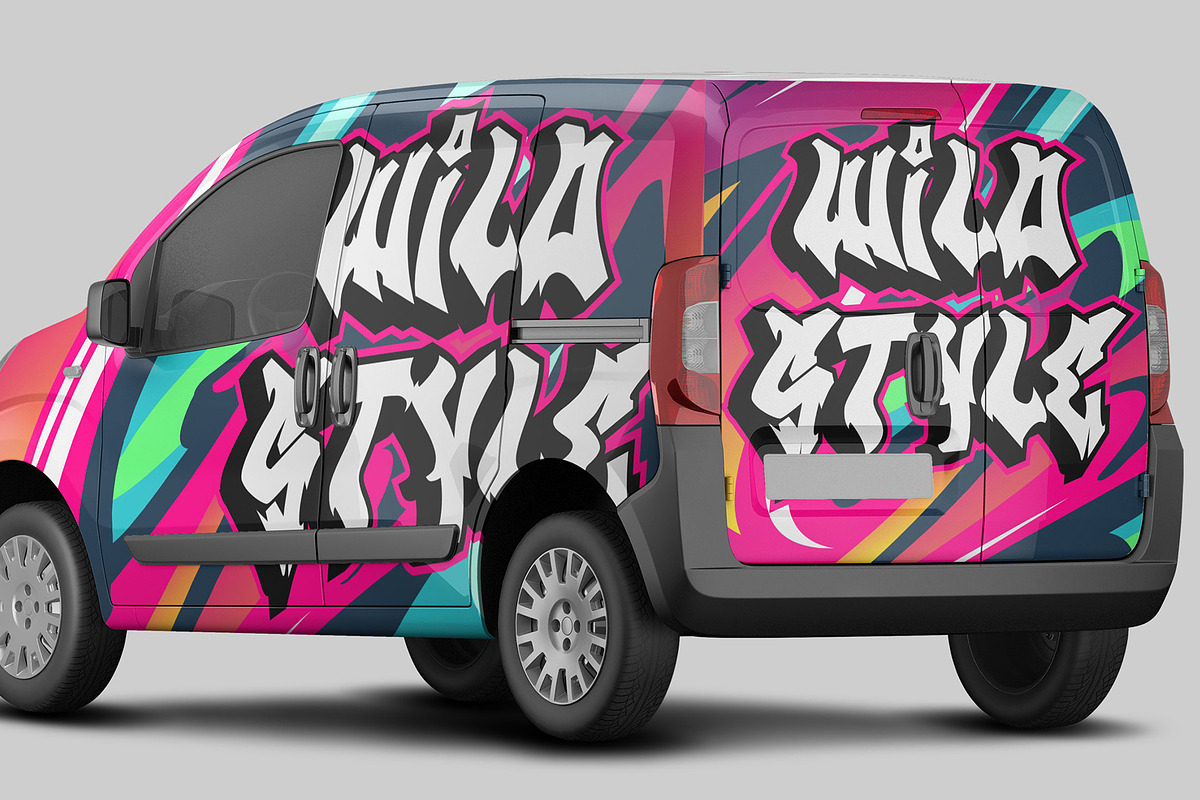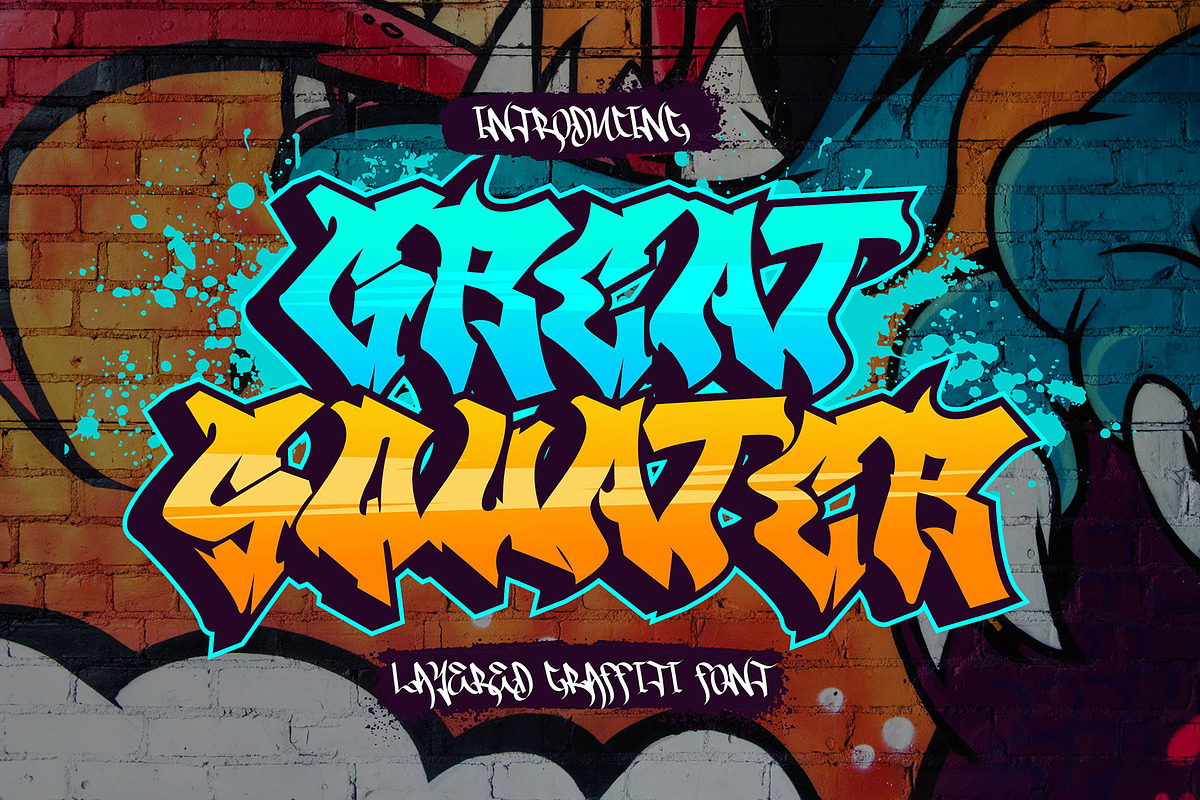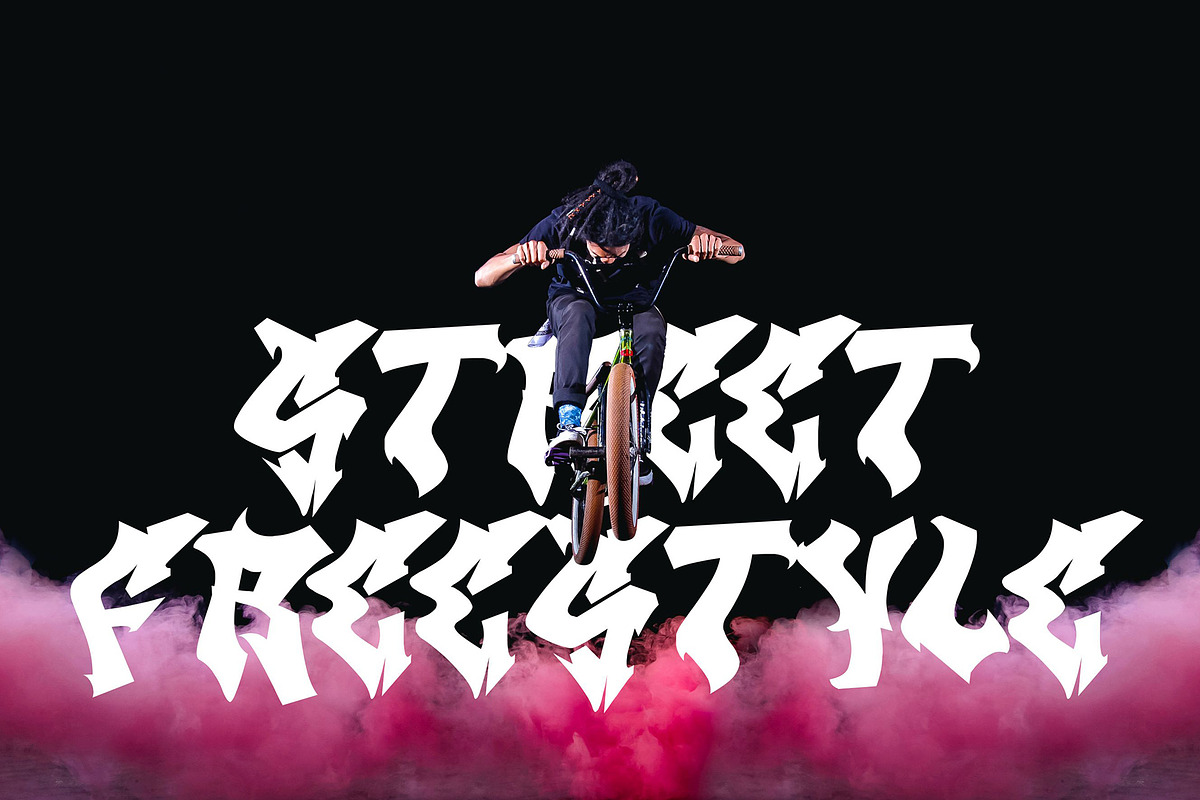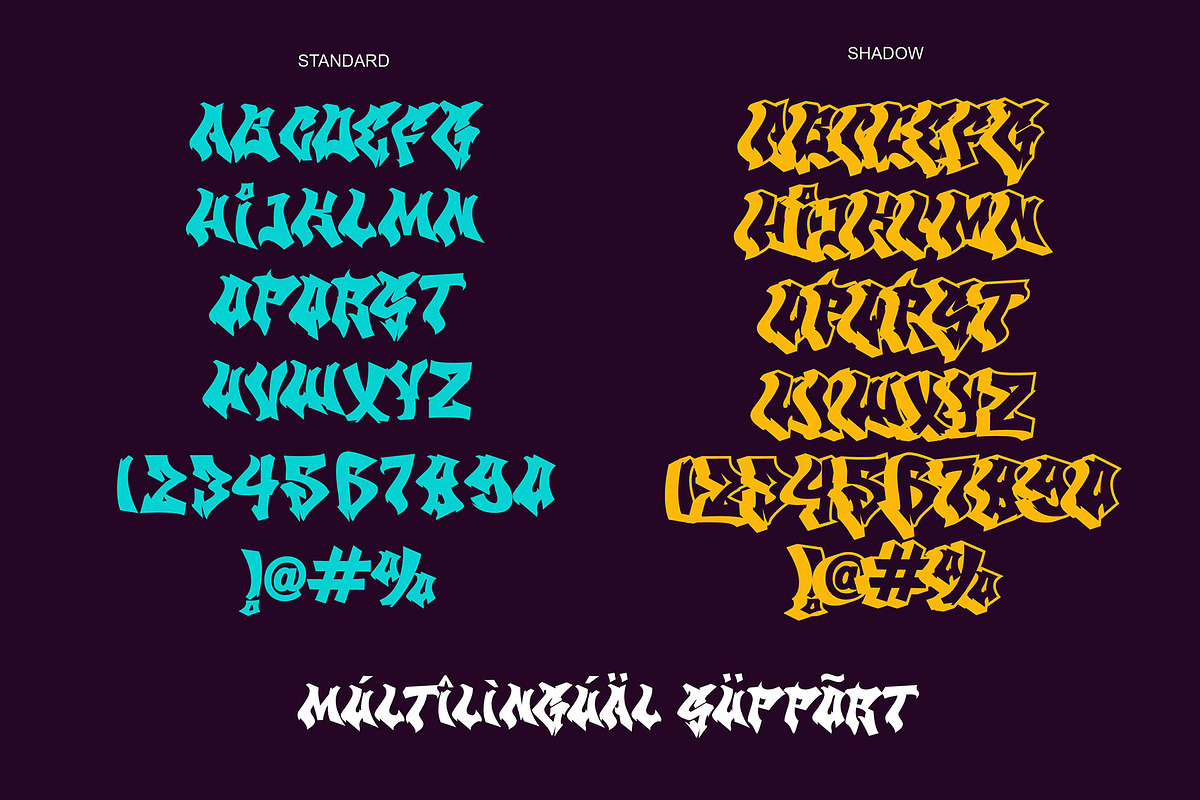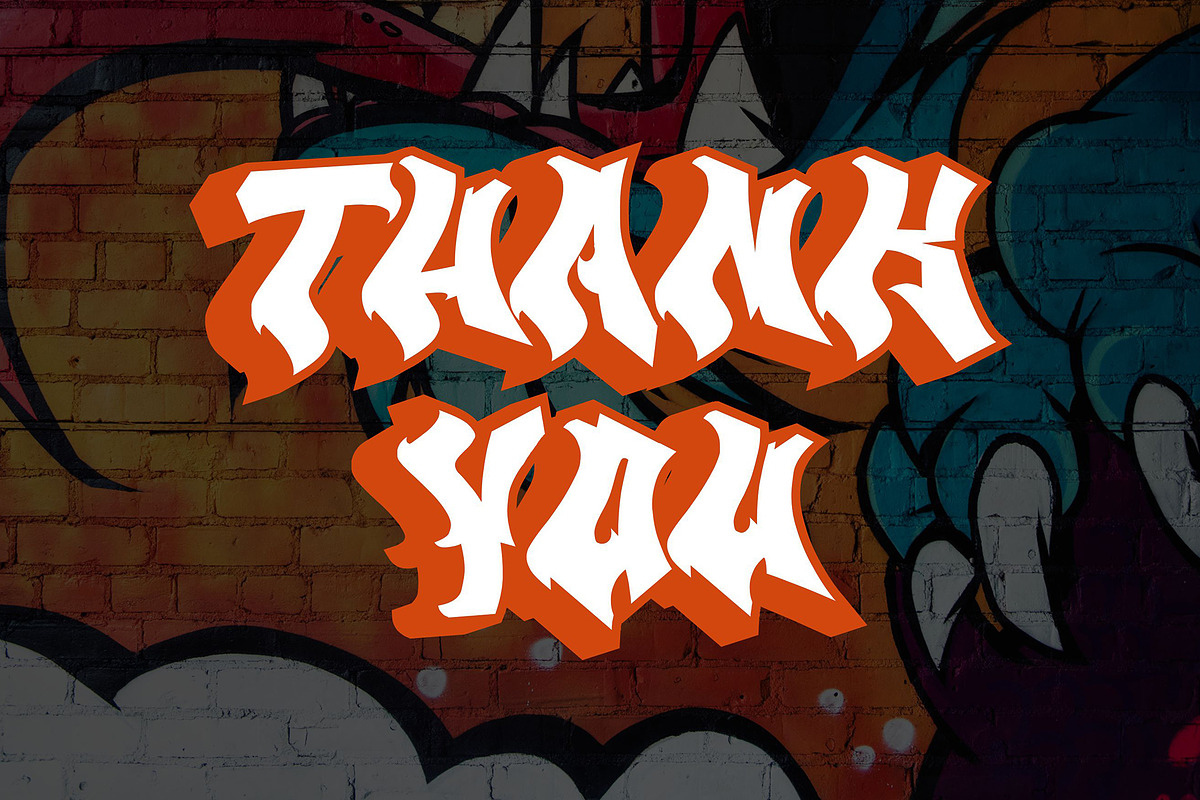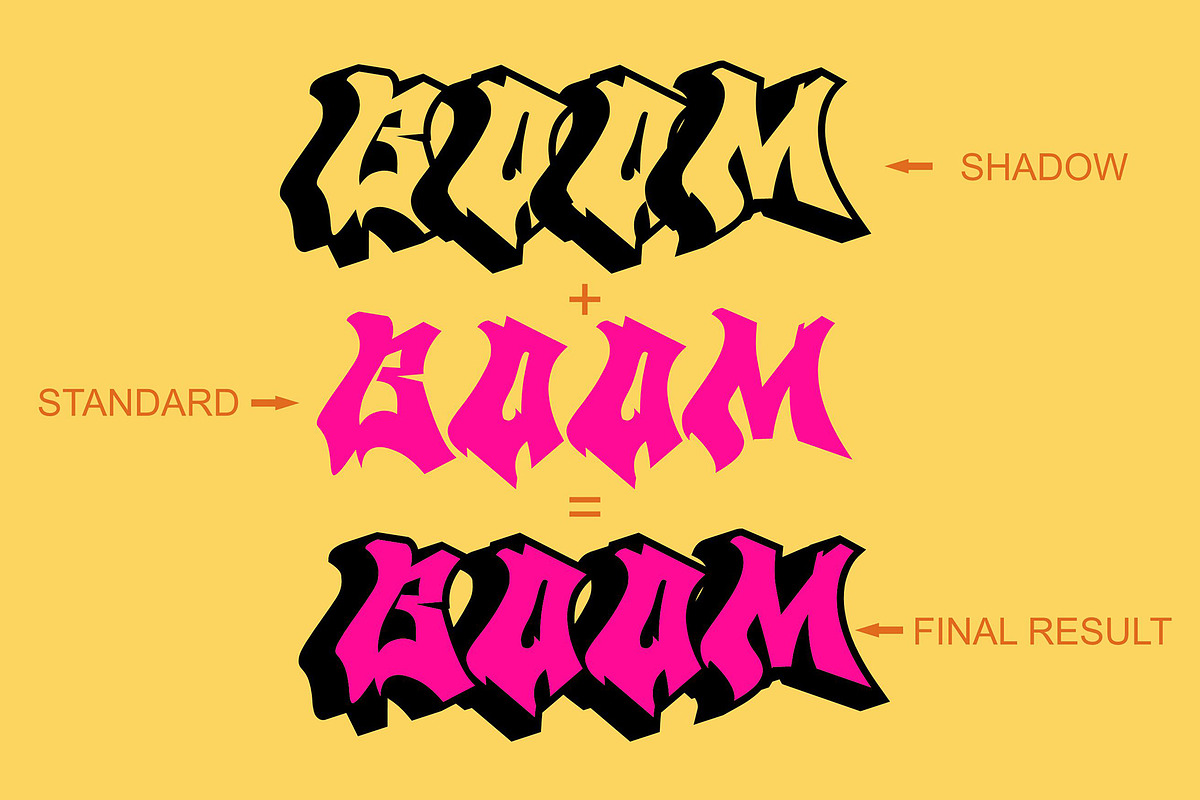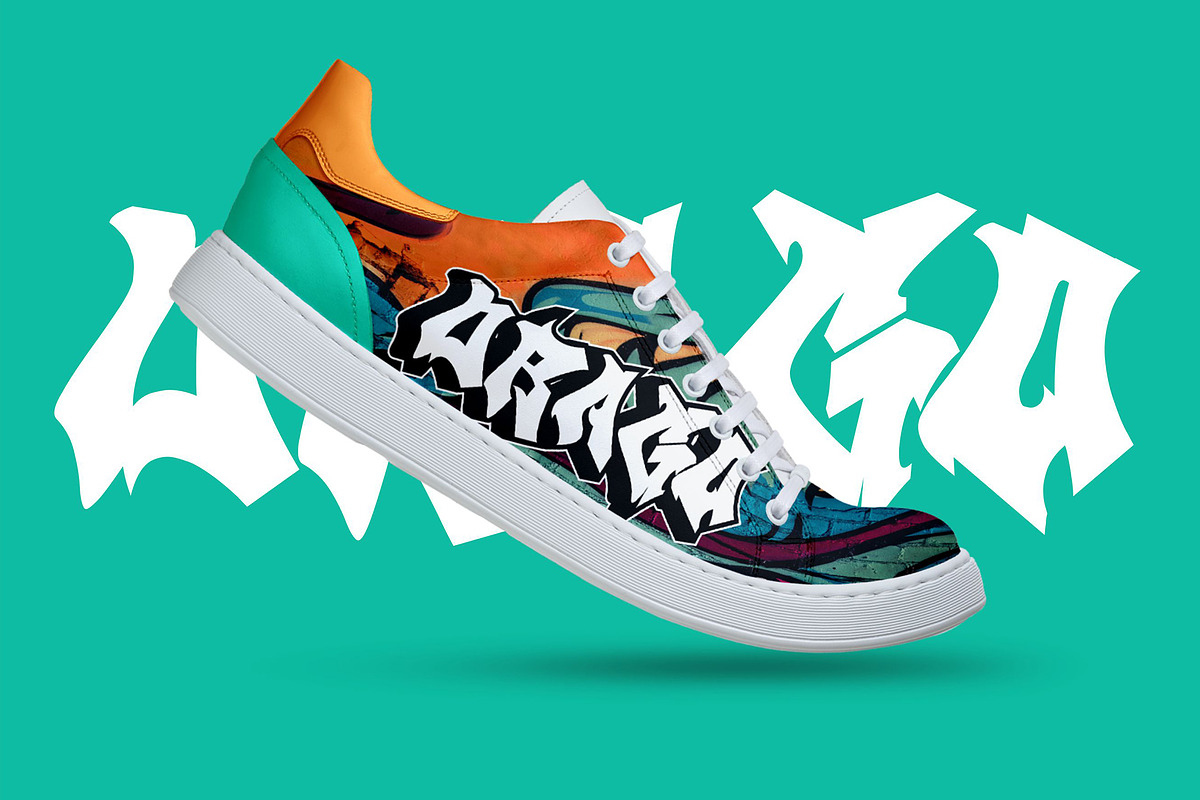
Great Squater
Great Squater is an urban graffiti font characterized by sharp edges and a bold look. Ideal for music posters, apparel designs, shirts, and streetwear, this font brings a touch of edginess to your projects. The unique style of “Great Squater” makes it the perfect choice for street style or urban graffiti themes. Whether you want to create a strong and powerful statement or simply add a touch of attitude to your designs, “Great Squater” is the font for you.